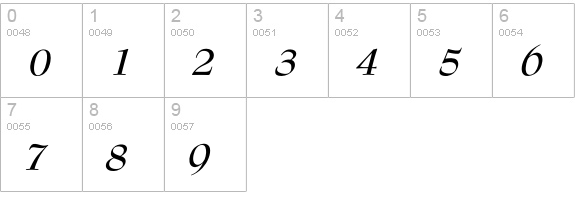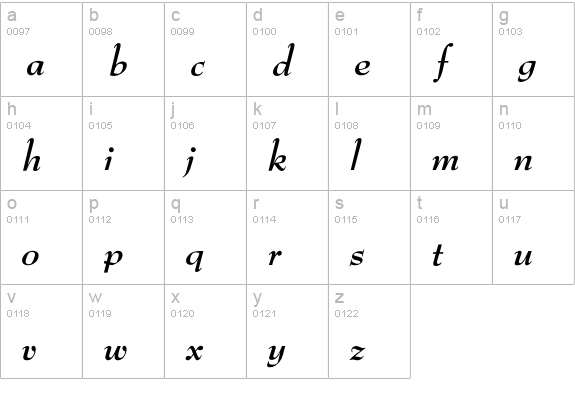
OPTIBenjieModern-BoldIta Font Details
Introducing OPTIBenjieModern-BoldIta font, a striking and versatile typeface designed to make a bold statement. This modern interpretation of a classic italic style exudes elegance and sophistication, perfect for adding a touch of flair to your designs. The sleek and stylish letterforms of OPTIBenjieModern-BoldIta font are sure to attract attention and leave a lasting impression. What's even better is that OPTIBenjieModern-BoldIta font is available for free download at FontsMarket.com. Yes, you read that right - this high-quality font can be yours at no cost, making it a valuable addition to your font library without breaking the bank. Whether you're working on branding projects, editorial designs, or any other creative endeavor, OPTIBenjieModern-BoldIta font is ready to elevate your work with its bold and modern aesthetic. Don't miss out on the opportunity to enhance your designs with the sleek and stylish OPTIBenjieModern-BoldIta font - download it for free today at FontsMarket.com and unlock a world of creative possibilities!